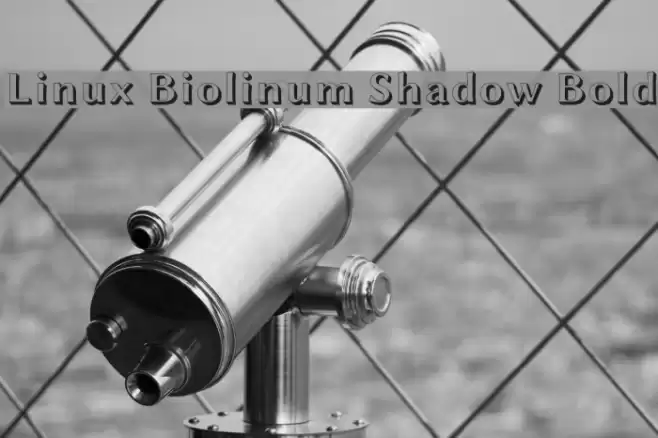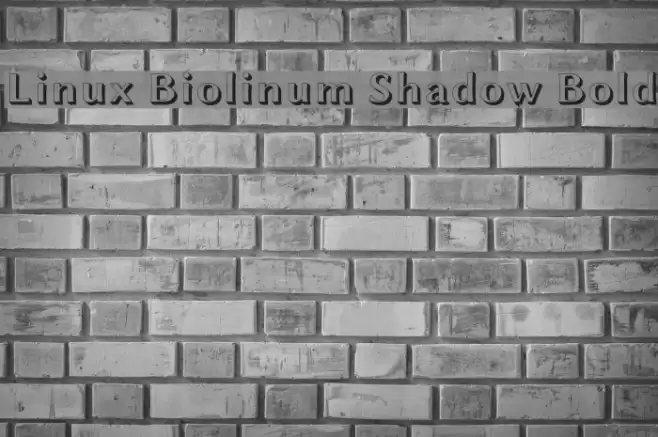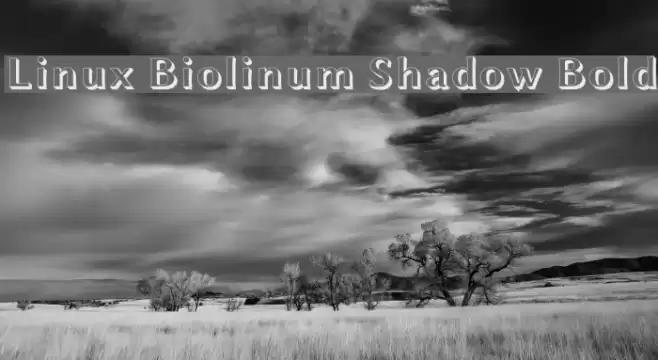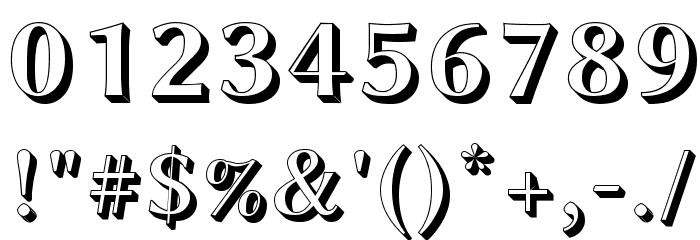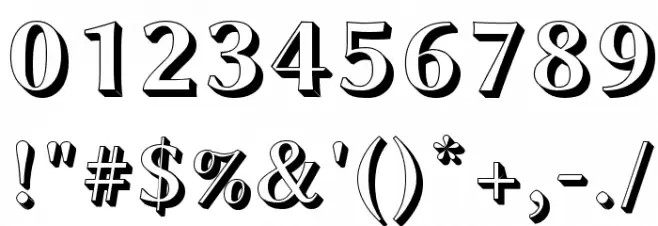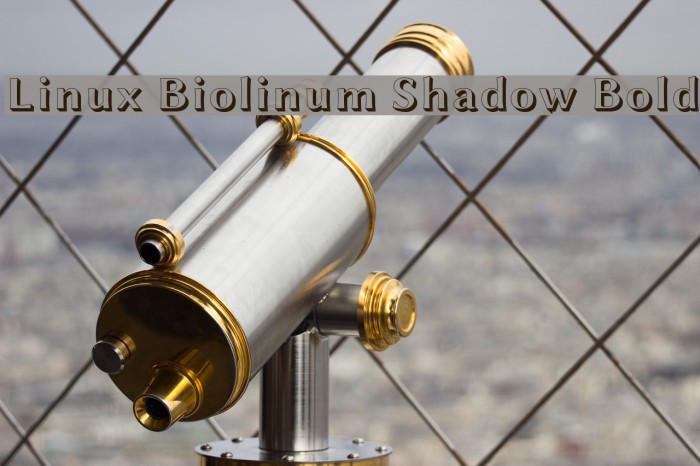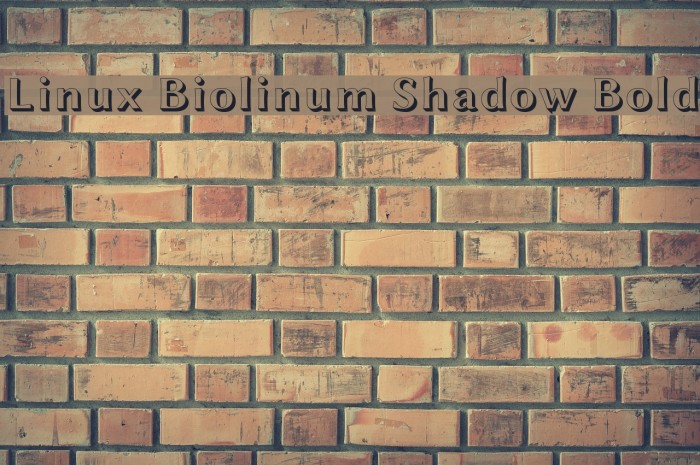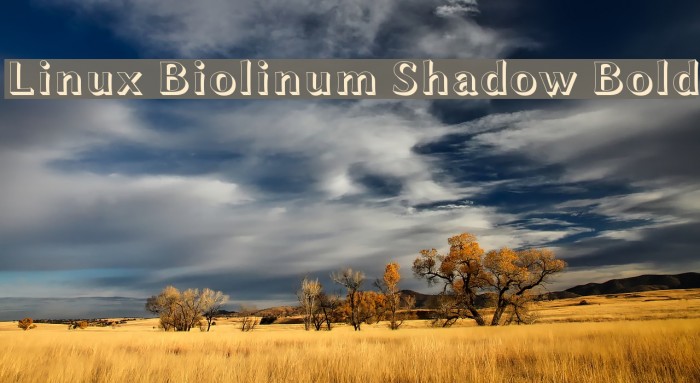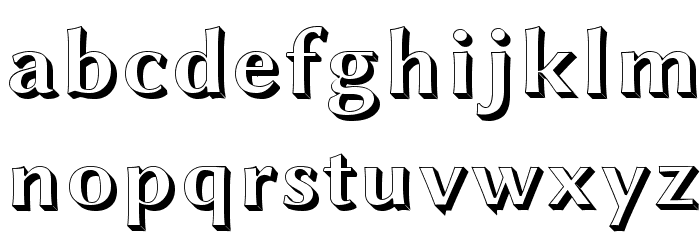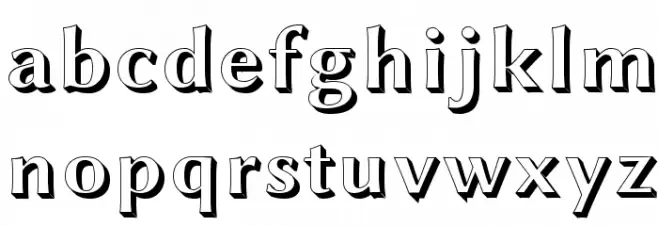
Linux Biolinum Shadow Bold Font
Linux Biolinum Shadow Bold Description
This font features a bold and shadowed style, giving it a three-dimensional appearance. The letters are well-defined with a strong presence, making them stand out on any page. The uppercase and lowercase characters maintain a consistent style, with the shadow adding depth and a sense of movement. The numerals are equally bold, ensuring readability and impact. Special characters are included, matching the overall aesthetic. This font is ideal for projects that require a striking and dynamic look, combining traditional serif elements with a modern twist.
Bold, shadowed serif font with a three-dimensional effect from Uncategorized fonts.
- Proposed Projects: Ideal for headlines, posters, logos, and any design needing a bold statement.